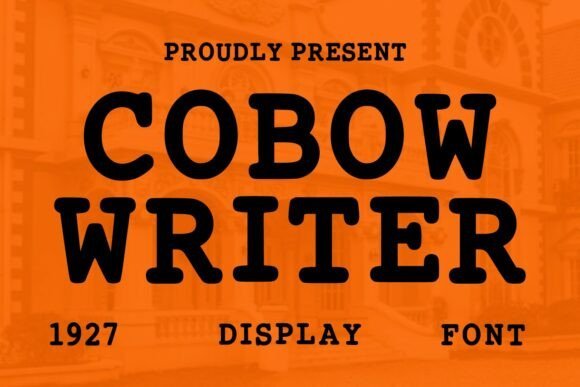
Timeless Typography: Unleashing the Charm of Cobow Writer Font
Do you remember the thrill of rummaging through your grandfather’s attic, uncovering dusty old posters and vintage advertisements that seemed to whisper tales of a bygone era? The allure of classic typography, with its bold letterforms and nostalgic charm, is a siren call to designers and creatives alike.
Cobow Writer Font is a masterful recreation of that timeless appeal, transporting you to the Wild West of the early 20th century. This bold vintage display font is the perfect companion for designers seeking to evoke a sense of rustic authenticity in their projects. Whether you’re crafting a logo, creating a poster, or designing packaging, Cobow Writer Font brings a unique character that’s sure to captivate your audience.
- Unique Characteristics: Features a unique blend of modern and classic elements, making it suitable for both contemporary and traditional designs.
- Legibility: Designed with legibility in mind, the Cobow Writer Font is easy to read, even at small font sizes, making it ideal for body text and long-form content.
- Language Support: Supports a wide range of languages, including Latin, Cyrillic, and Greek alphabets, making it a versatile choice for international designs.
Cobow Writer Font Review
As a designer, I’ve had the chance to work with the Cobow Writer Font, and I must say it’s a decent addition to any digital project. ✨ The font’s readability is top-notch, making it perfect for body text. Its clarity and legibility are enhanced by its clean design, which doesn’t overwhelm the reader. ✨ Additionally, the font’s versatility allows it to work well in both print and digital mediums.
- ✨ High readability and clarity
- ✨ Clean design that doesn’t overwhelm the reader
- ✨ Versatility in both print and digital mediums
- ✨ Suitable for body text and other digital applications
- ⚠️ Limited style and flair – it’s a straightforward, no-frills font
- ⚠️ May not be the best choice for titles or headings due to its lack of personality
- ⚠️ Not as unique or memorable as some other fonts
Overall, I’d give the Cobow Writer Font a solid 3.5 out of 5 stars. It’s a reliable, no-fuss font that gets the job done. While it may not be the most exciting option, it’s a great choice for projects where clarity and readability are top priorities.
Use Cobow Writer Font for titles, headings, and body text in a variety of projects, including blogs, marketing materials, and presentations.
Cobow Writer Font is ideal for:
- Book and magazine titles
- Blog posts and articles
- Presentations and slideshows